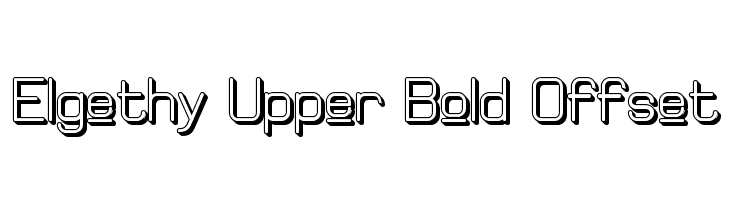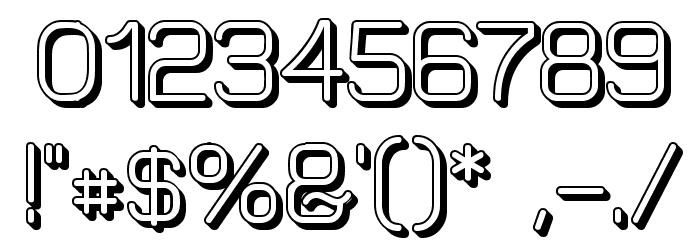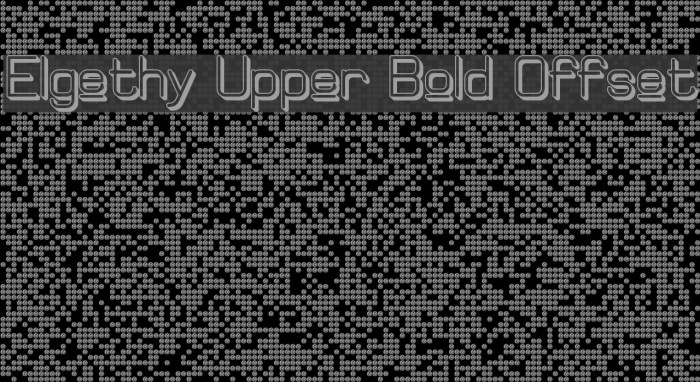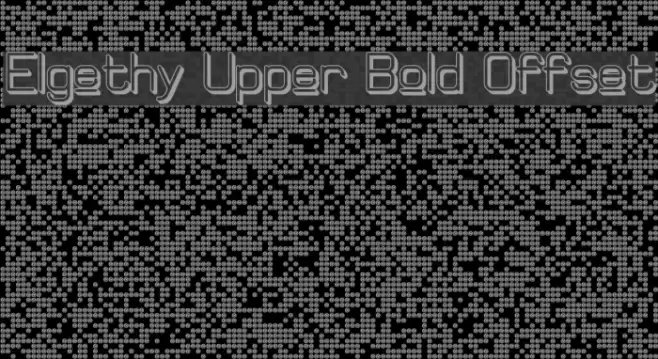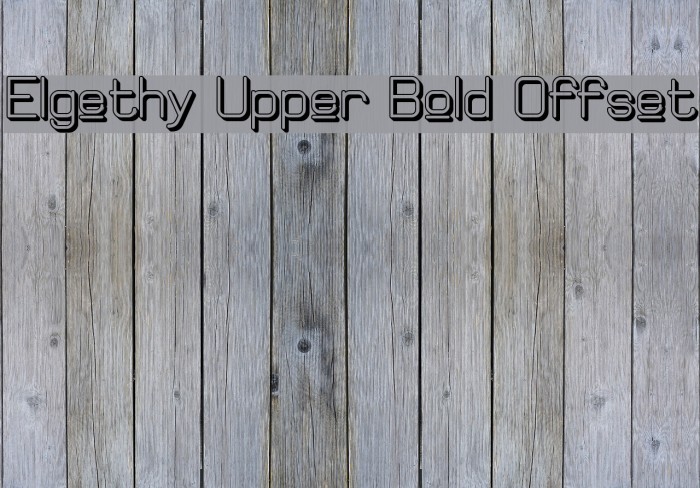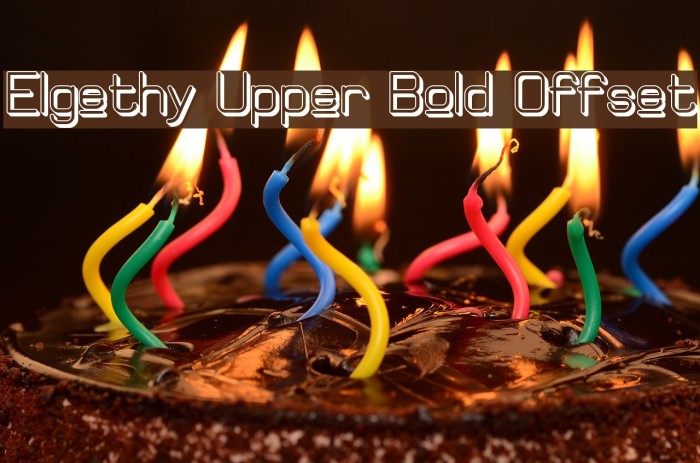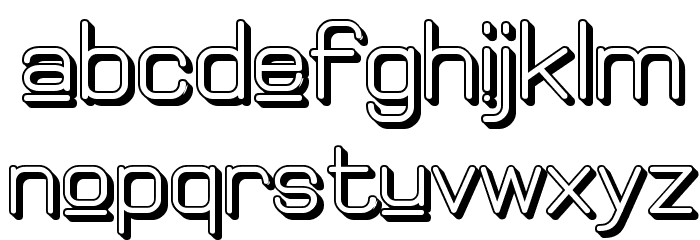
Elgethy Upper Bold Offset Font
Elgethy Upper Bold Offset Description
This font features a bold, offset design with a modern and futuristic appeal. The characters are outlined, creating a hollow effect that adds depth and dimension. The uppercase and lowercase letters maintain a consistent style, with clean lines and geometric shapes. The numerals and special characters follow the same design principles, ensuring uniformity across all glyphs. This font's unique offset style makes it stand out, ideal for projects that require a contemporary and eye-catching typeface.
| Use Case | Logos, Headlines, Posters |
| Proposed Projects | Ideal for branding, posters, digital media, and futuristic-themed designs. |